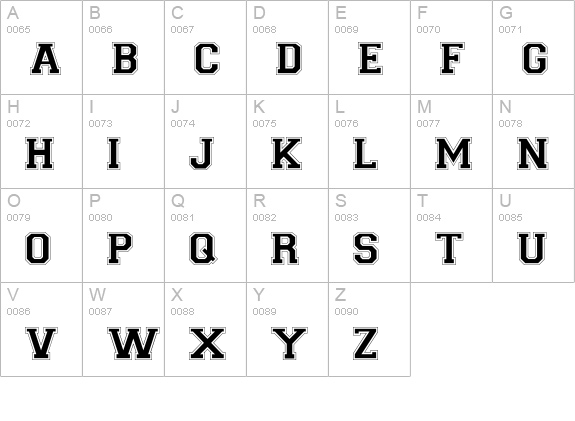
Collegiate-Norm Font Details
Collegiate-Norm font is a classic and elegant typeface that exudes sophistication and professionalism. Its clean lines and timeless design make it a perfect choice for academic and formal settings. The font's bold presence and sharp edges command attention, while its versatility allows it to be used in a variety of projects. Best of all, Collegiate-Norm font is completely free to download at FontsMarket.com. This means that you can enhance your designs with this premium-quality font without having to worry about any additional costs. With Collegiate-Norm font, you can elevate your projects and make a lasting impression with ease.